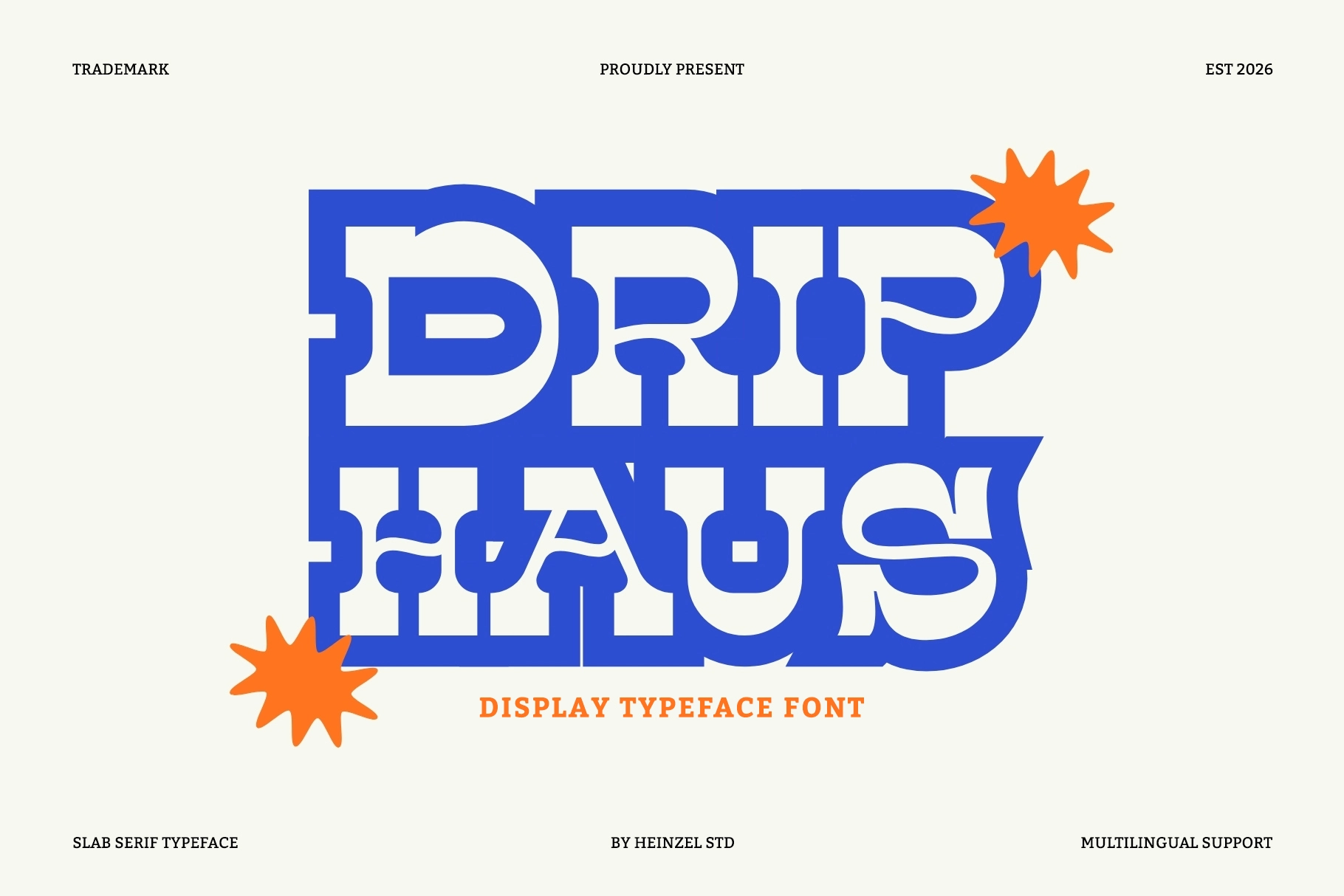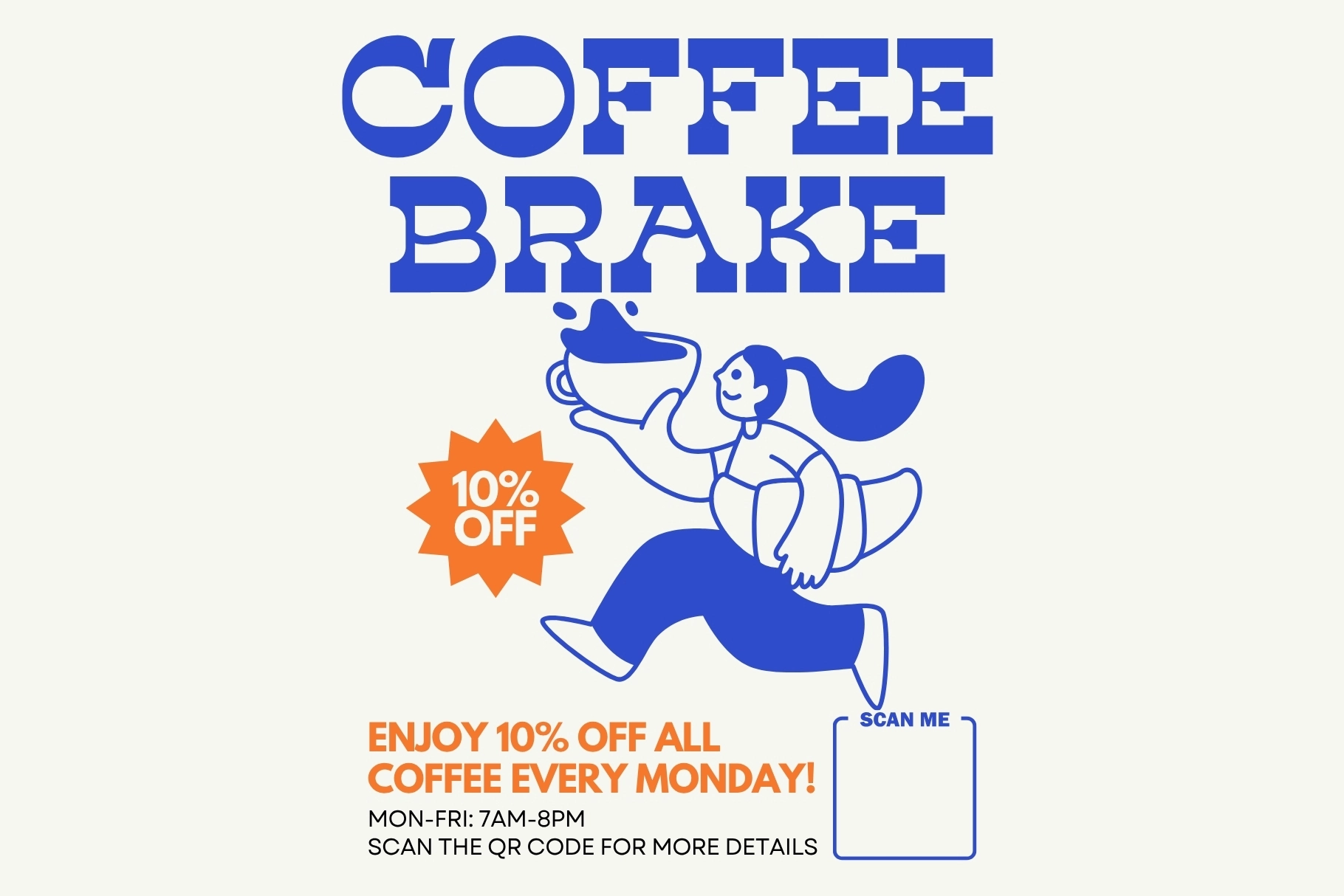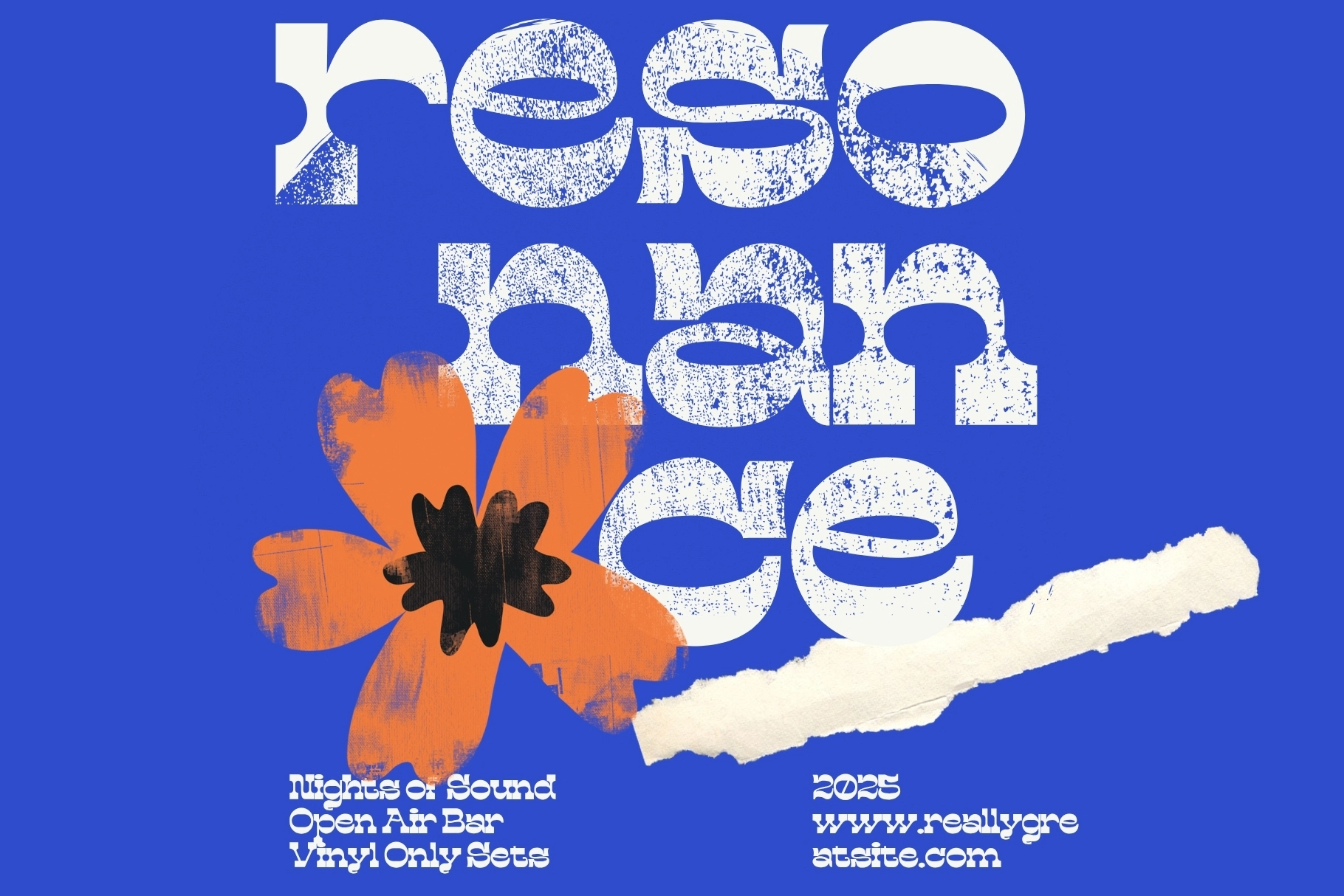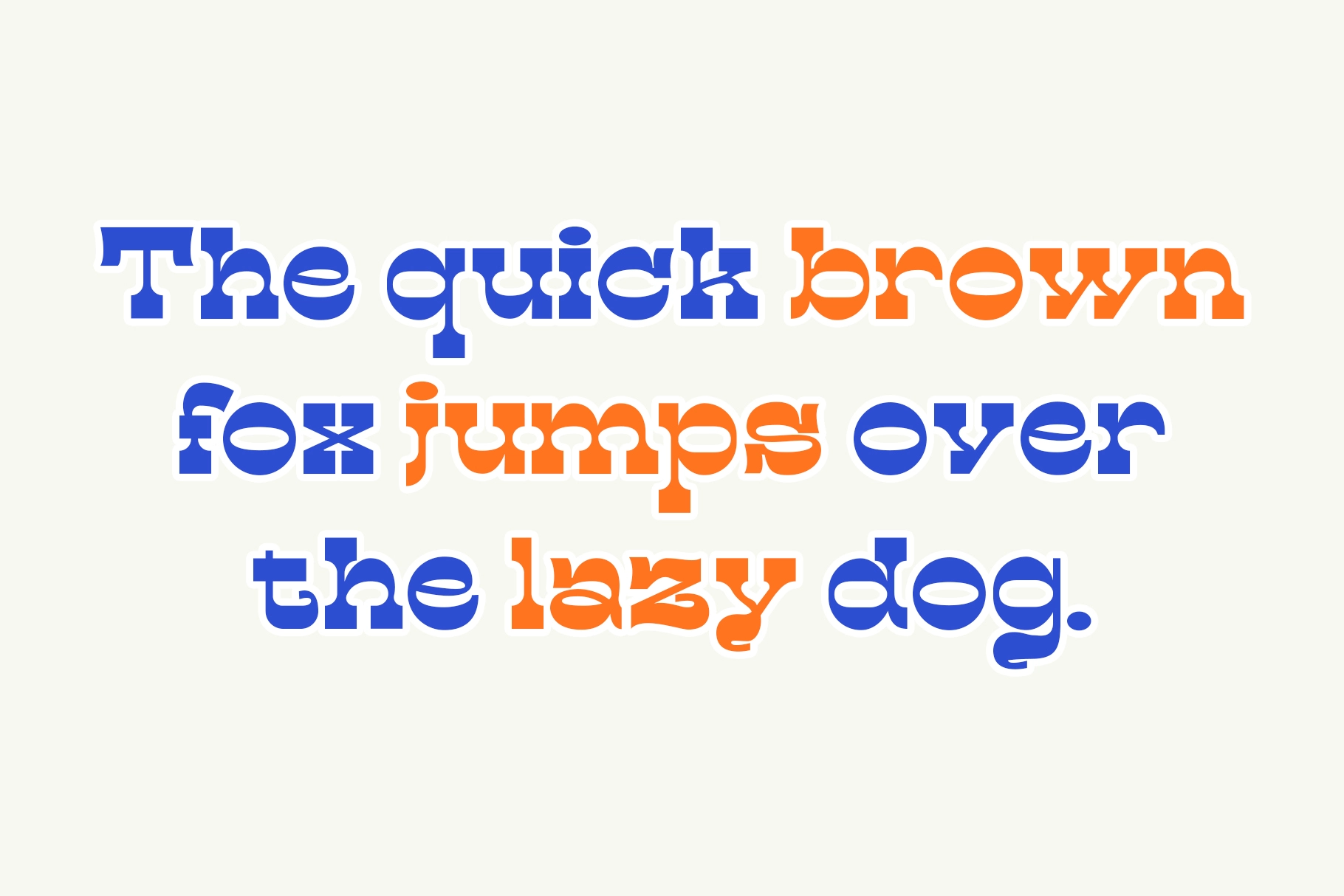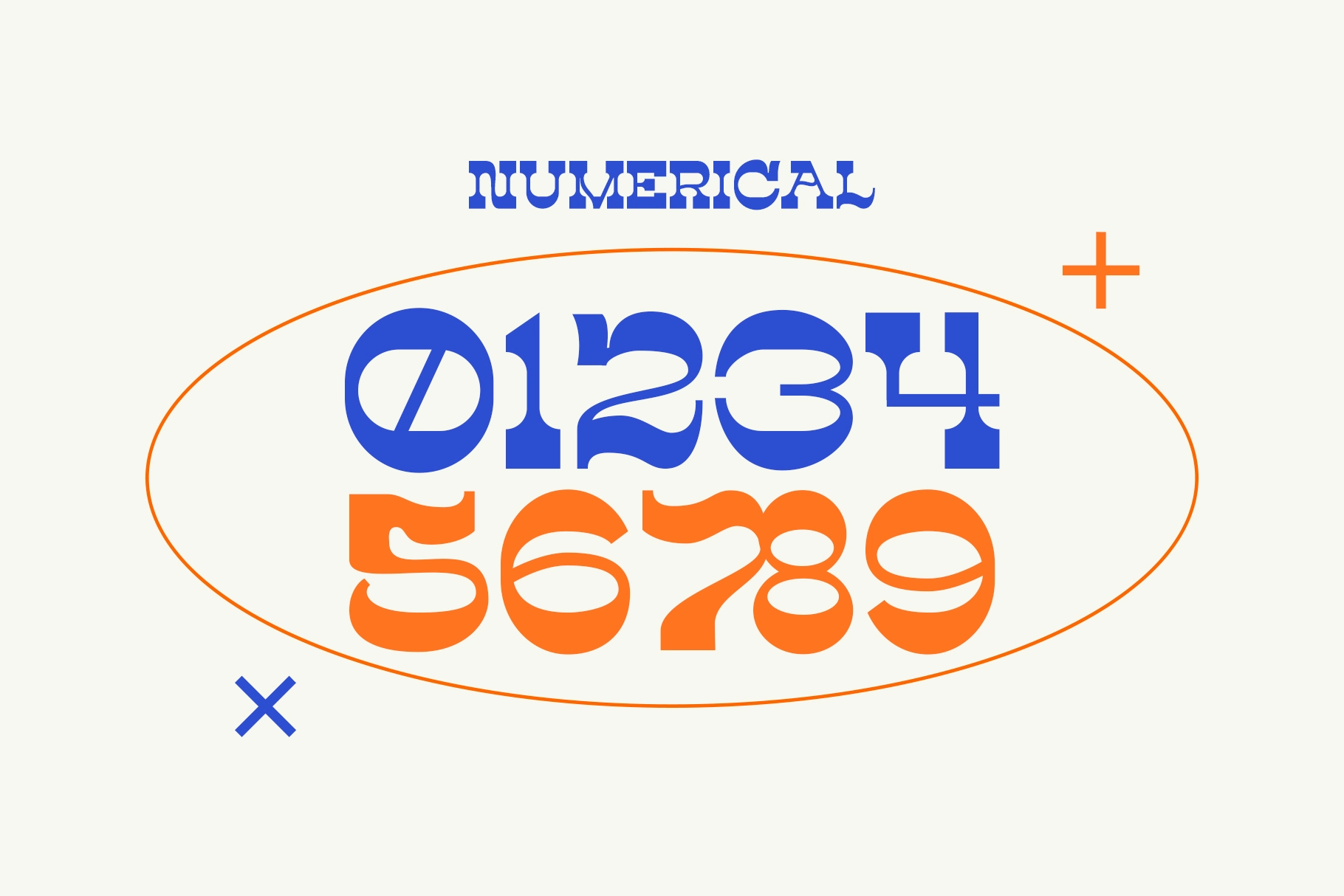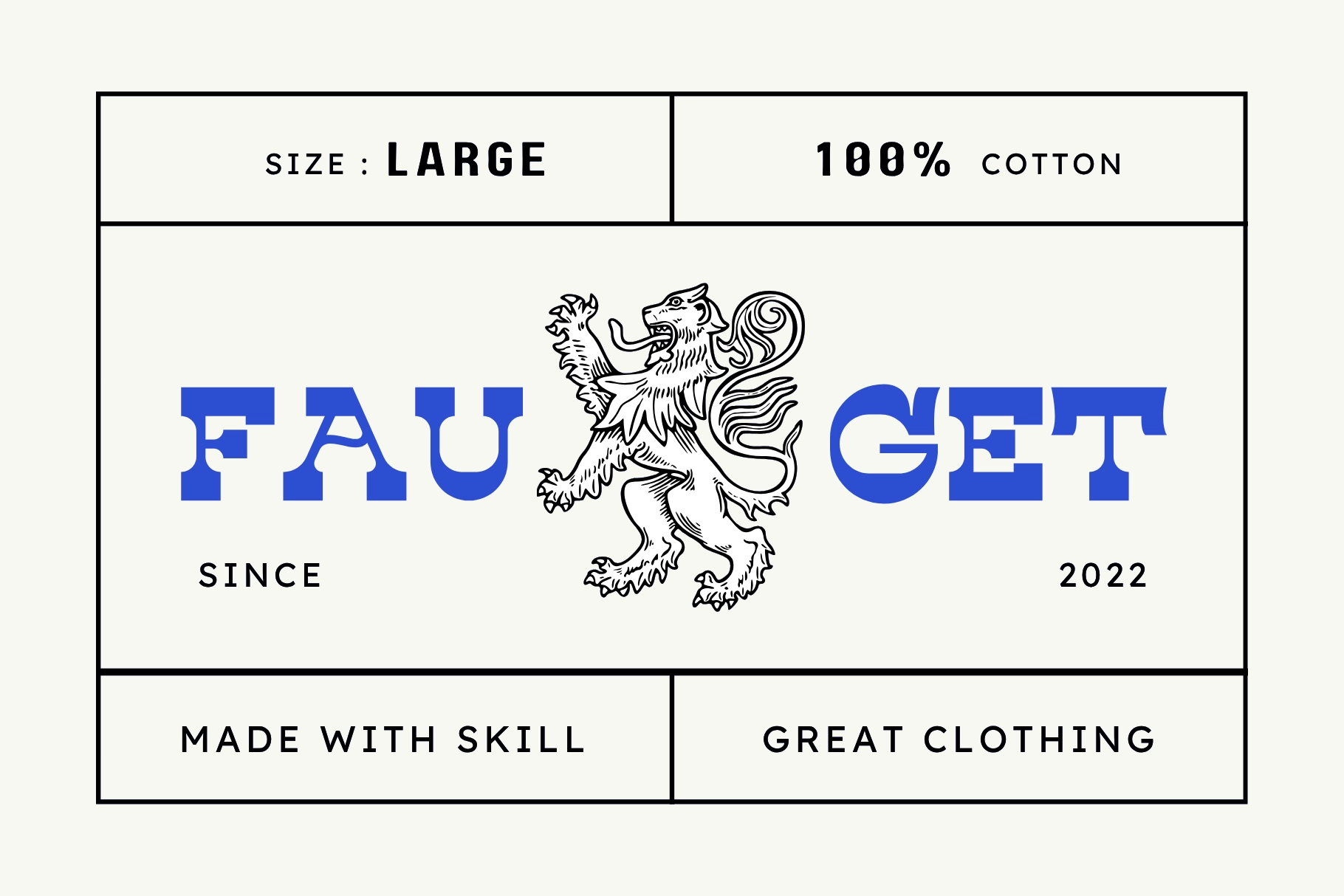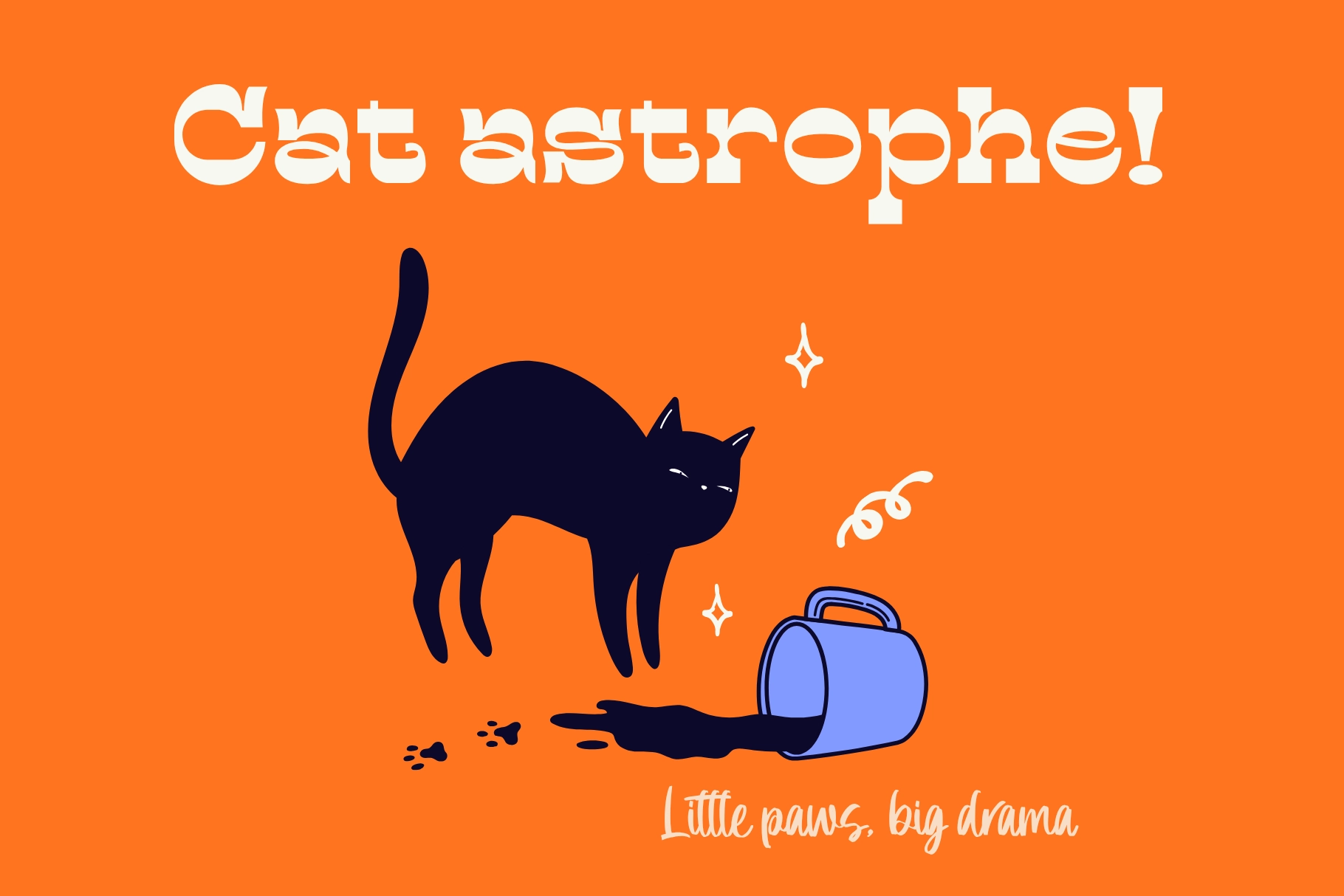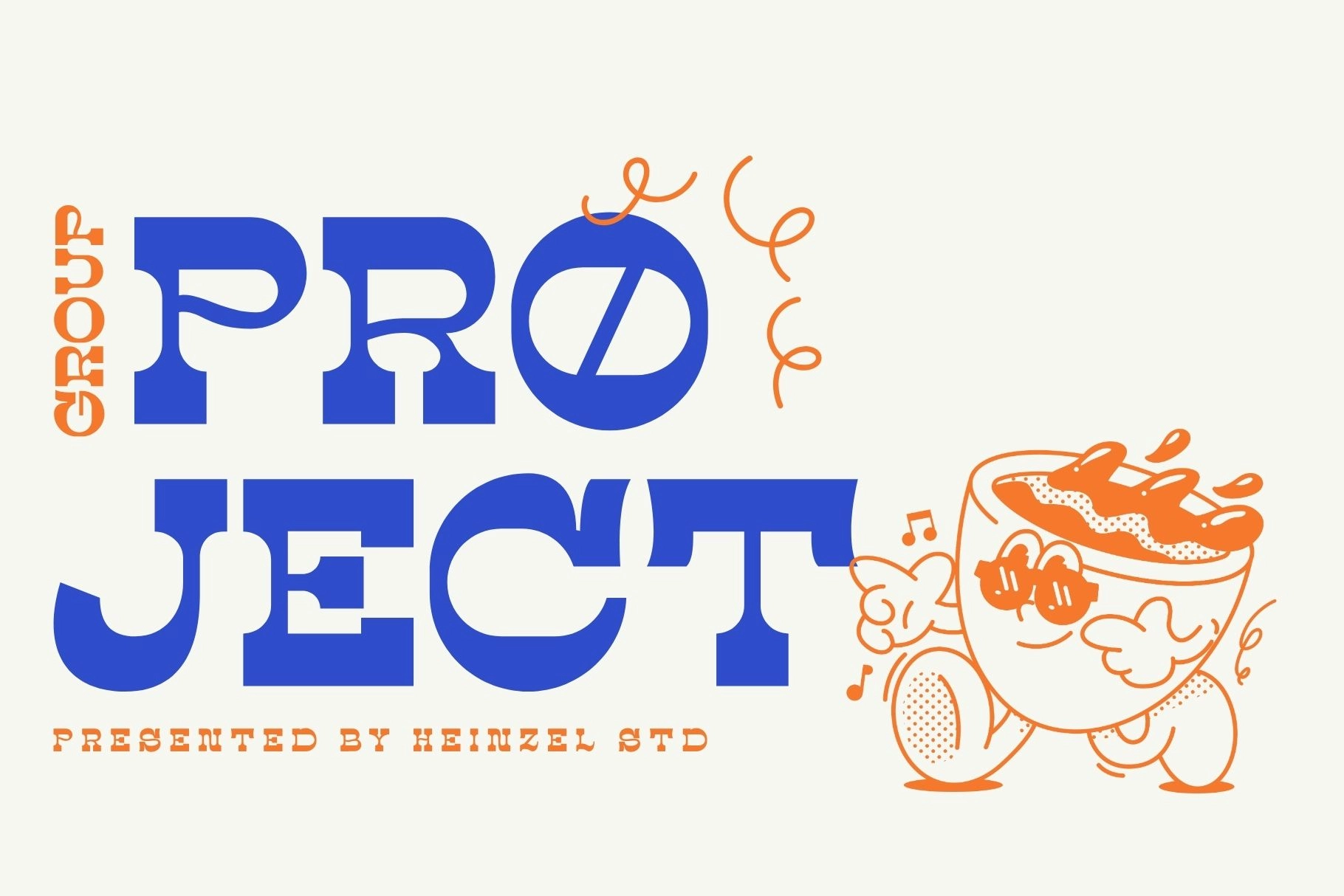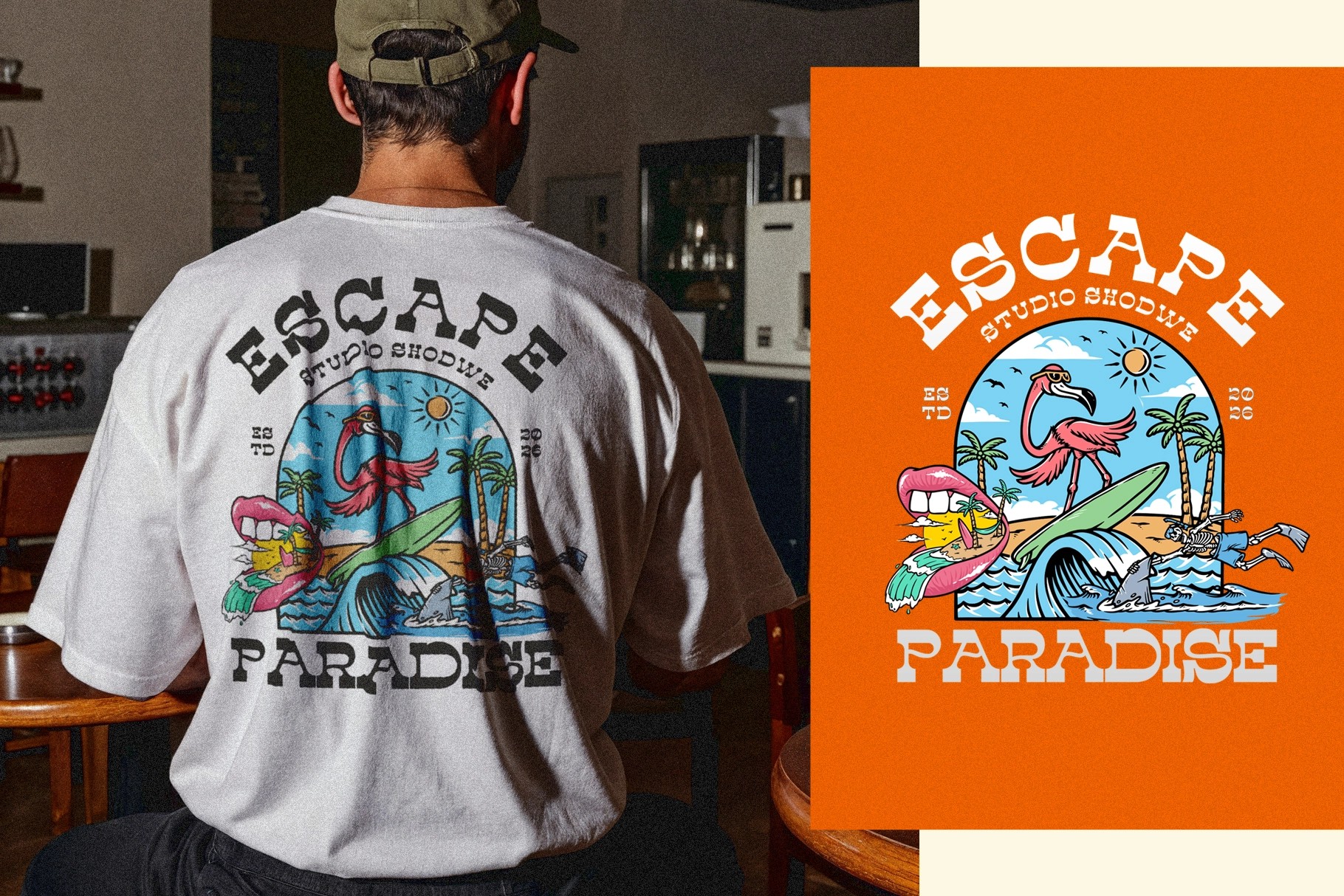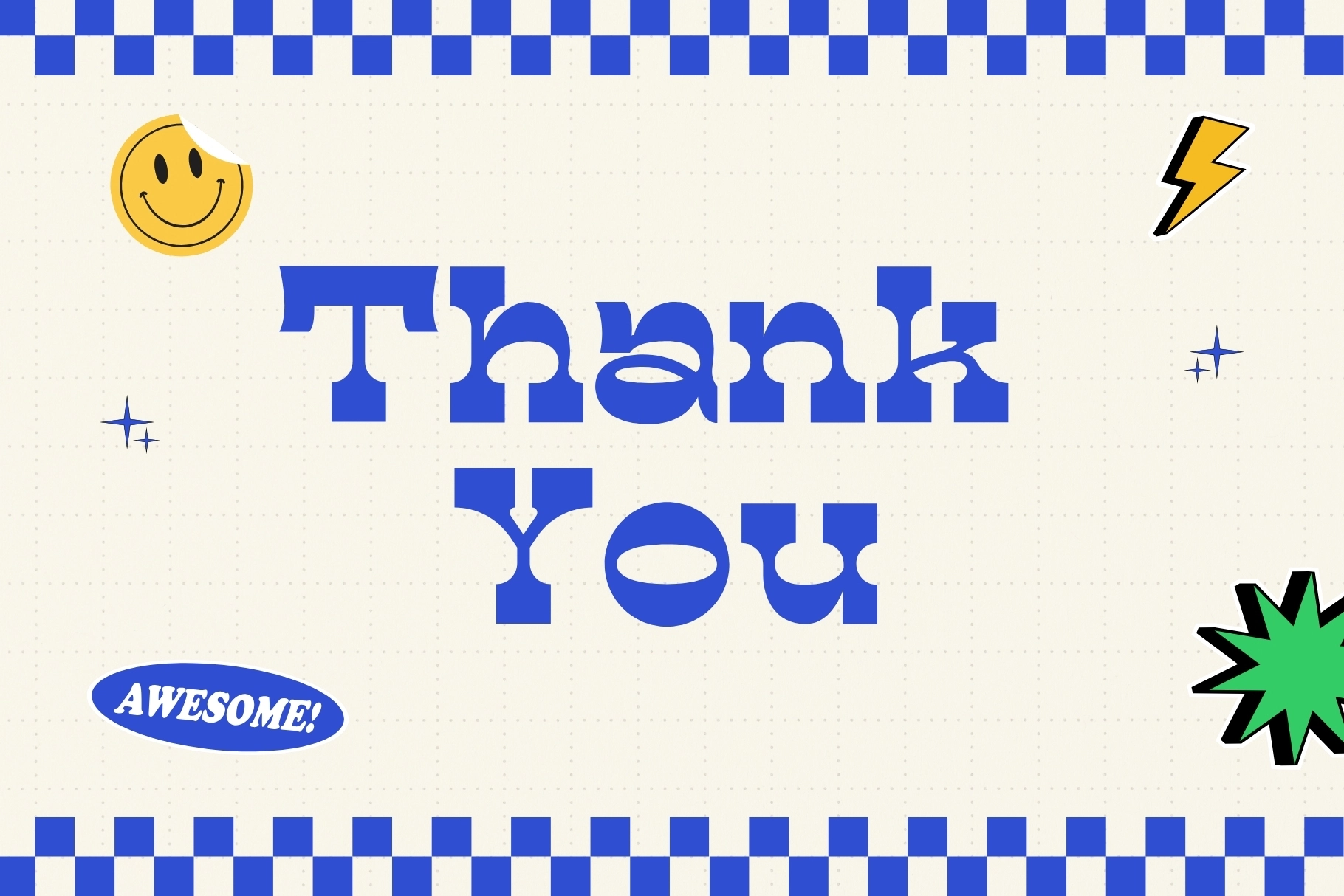
Drip Haus - Retro Slab Serif Font
This display typeface has chunky slab construction, rounded inner cuts, and playful retro shapes that land with big poster energy. Its bold rhythm and decorative letter details are made for loud headlines, vintage-inspired branding, and layouts that need instant graphic weight.
Drip Haus works well for coffee branding, café posters, packaging, merch graphics, logo marks, menu boards, social media promos, stickers, event flyers, editorial titles, apparel prints, product labels, and campaign visuals. The strong slab serif style pairs especially well with simple illustrations, flat color palettes, and large-scale typographic compositions.